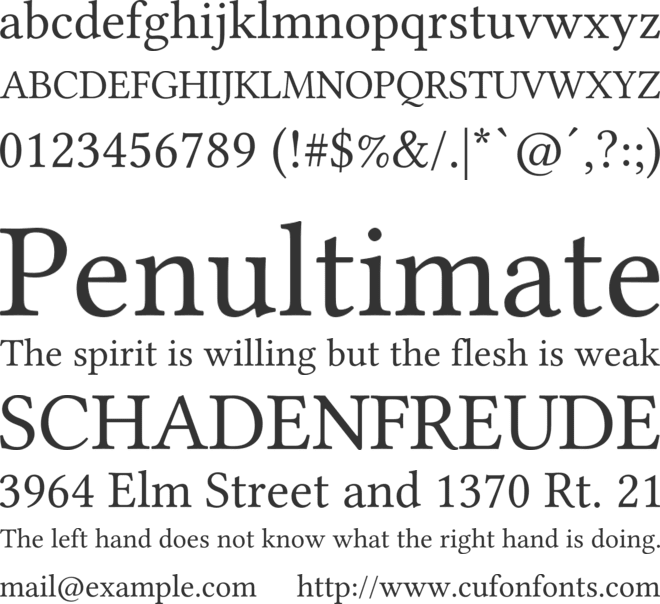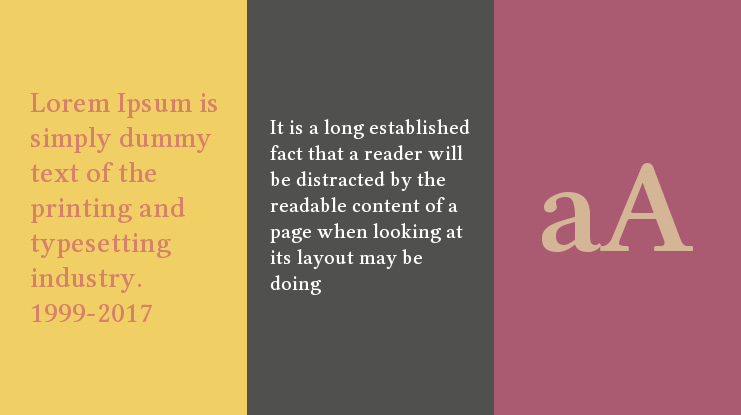
Linux Libertine O Font Family
Philipp H. Poll
Linux Libertine is a proportional serif typeface, intended as a free replacement for Times New Roman. http://www.linuxlibertine.org/